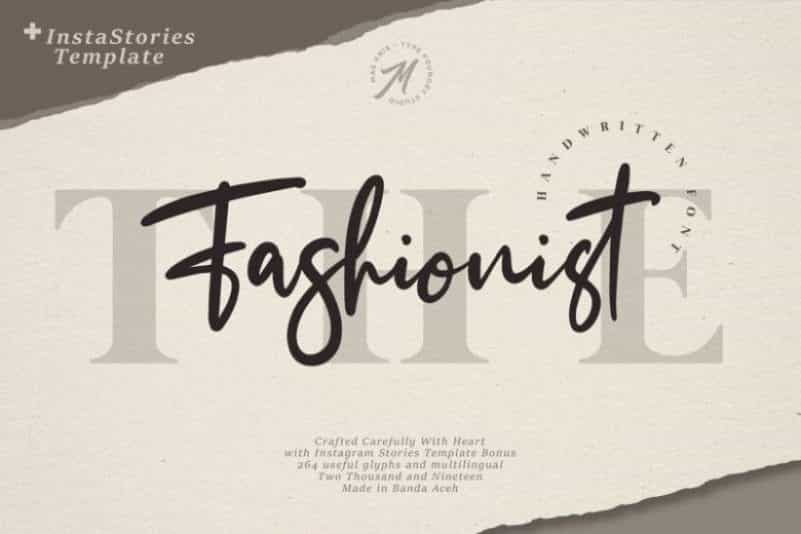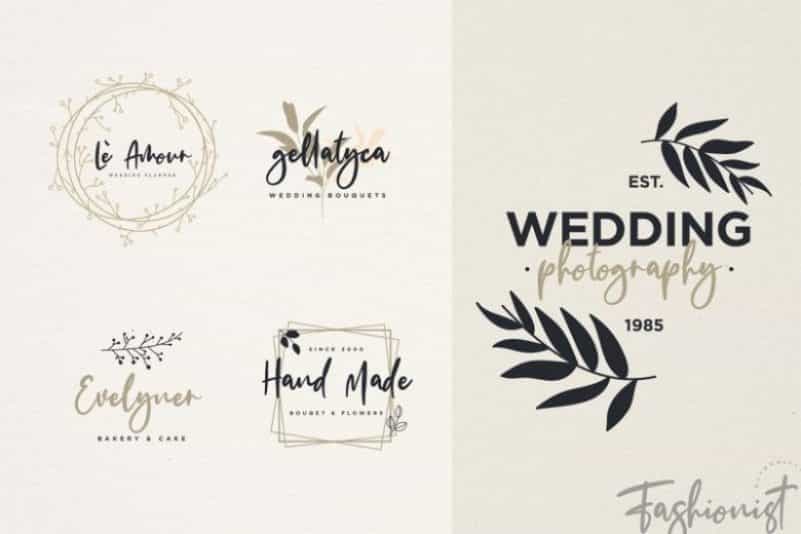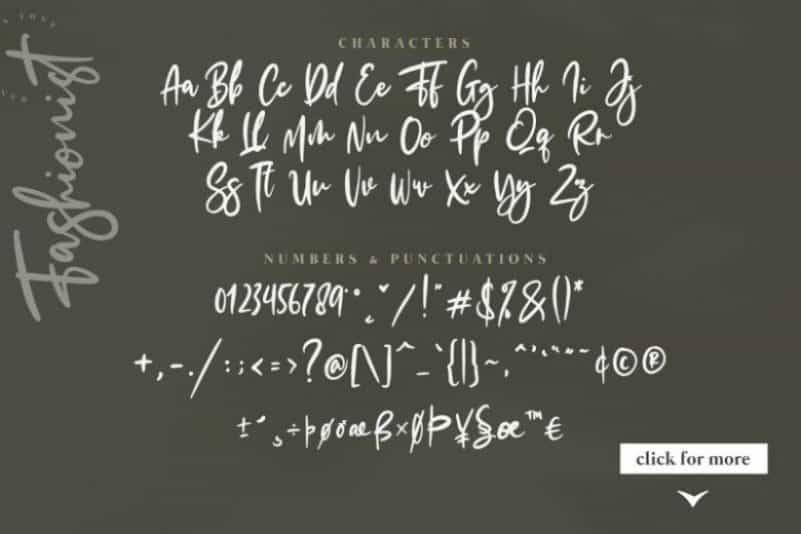
Discover The Fashionist Font, part of the Brush Handwritten collection—a versatile and unique font perfect for adding a personal touch to your projects. Download it for free and enjoy crafting designs with style, from invitations to social media posts. This font is available exclusively for personal use, giving you the freedom to create without limits. Unlock your creativity with The Fashionist Font today!
Fashionist is a natural handwritten font, it’s perfect for Logo, invitation, stationery, wedding designs, social media post, advertisements, be it a product packaging, product designs, labels, photography, watermarks, special events or anything.